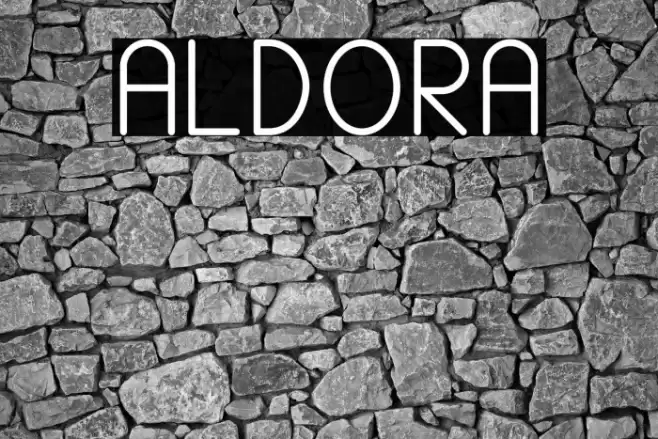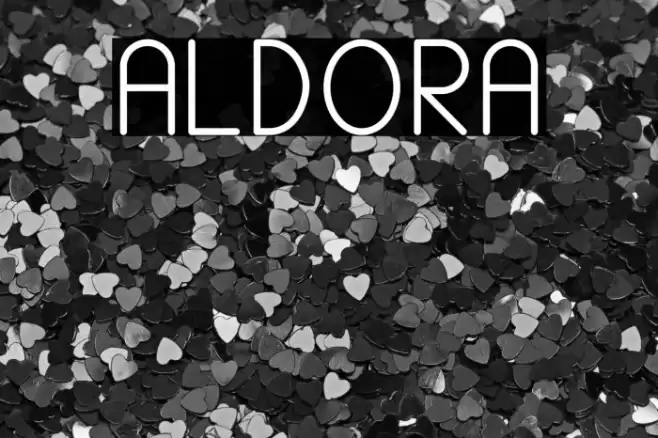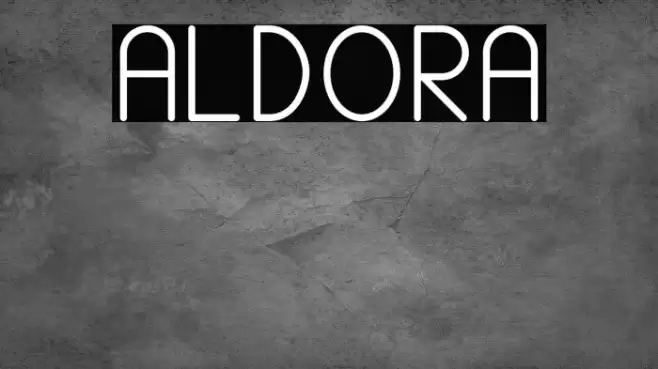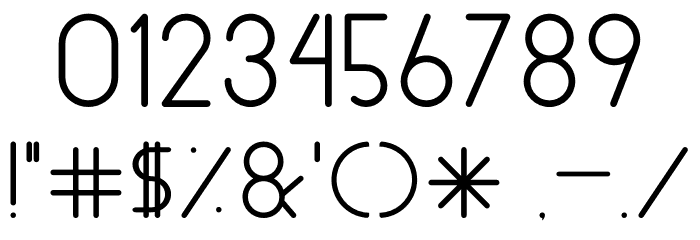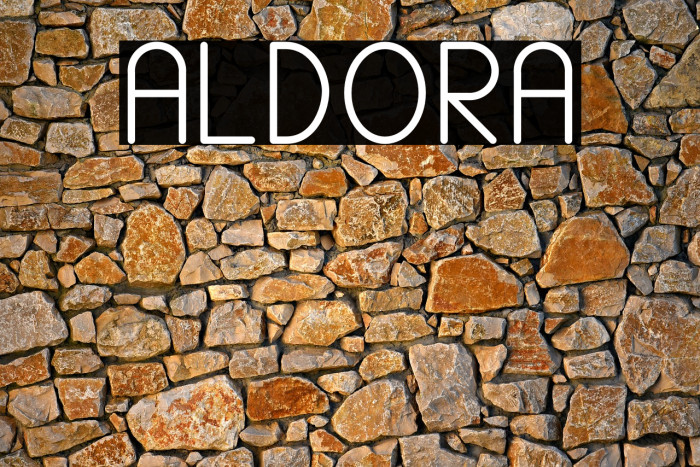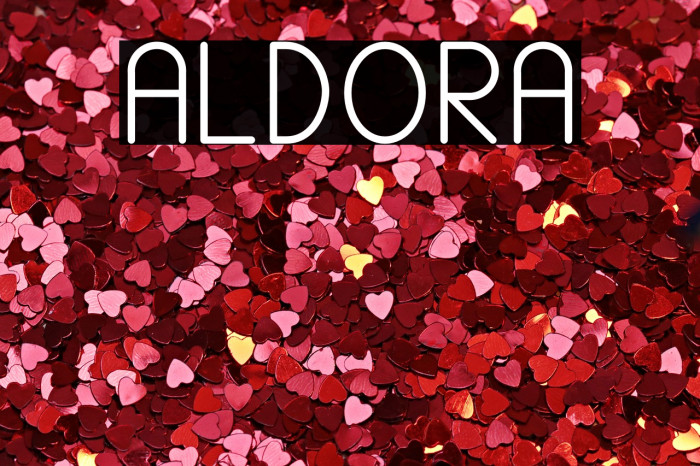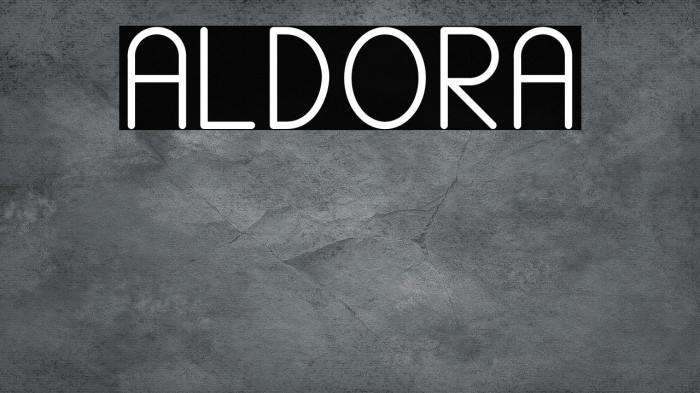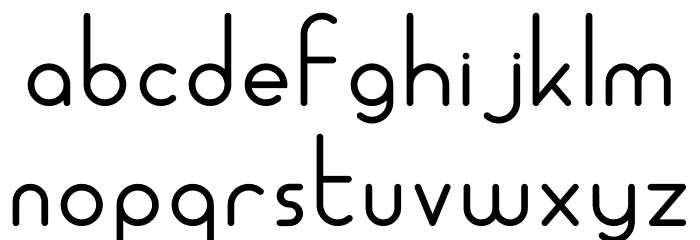
ALDORA Font
ALDORA Description
This font features a clean, geometric design with rounded edges, giving it a modern and approachable appearance. The uniform stroke width and minimalistic style make it highly legible and versatile. The uppercase letters are bold and assertive, while the lowercase letters maintain a friendly and inviting look. The numerals are consistent with the overall design, ensuring clarity and readability. Special characters are thoughtfully integrated, maintaining the font's cohesive aesthetic. This font is ideal for projects that require a contemporary and professional touch.
A modern, geometric font with rounded edges and uniform stroke width from Uncategorized fonts.
- Proposed Projects: Ideal for branding, advertising, web design, and editorial projects.